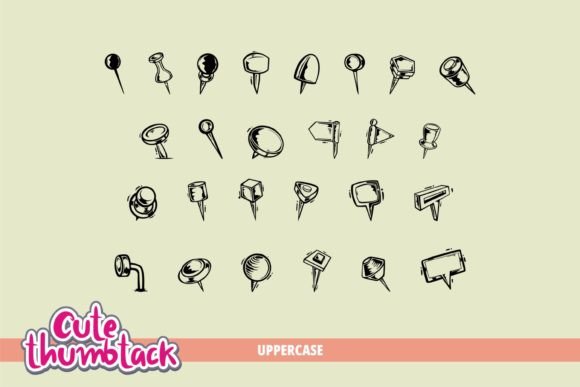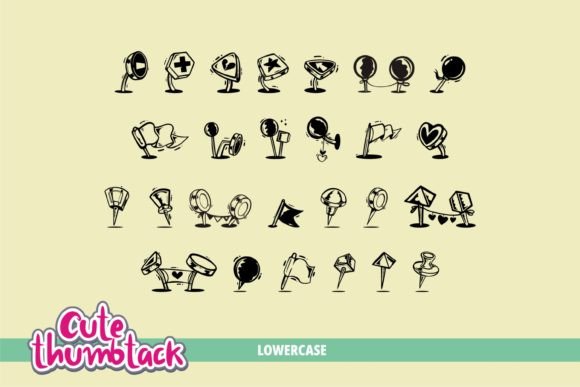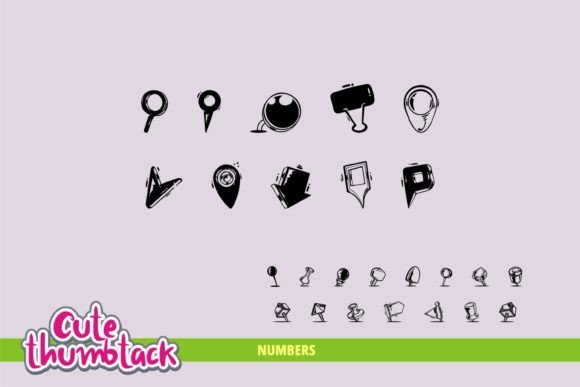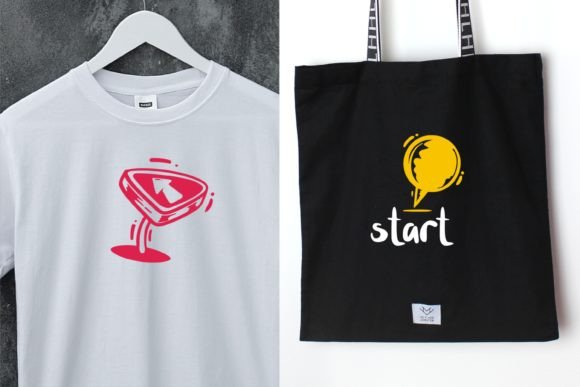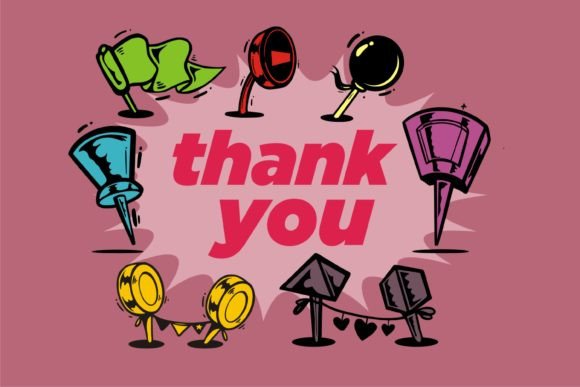
Introduction to Cute Thumbtack Font
Who hasn’t felt that rush of excitement when they stumble upon a unique design resource that instantly elevates their creative project? As designers, we’re always on the lookout for that one special something that sets our work apart from the rest. For me, it was the discovery of the Cute Thumbtack Font – a delightful dingbats font that adds a touch of whimsy and playfulness to any design.
Imagine being able to infuse your designs with a sense of fun and personality, without sacrificing quality or professionalism. With the Cute Thumbtack Font, you can do just that. Whether you’re creating a t-shirt design, a kids’ book, or a piece of wall art, this high-quality font is sure to bring a smile to your face and a sparkle to your design.
Key Features of Cute Thumbtack Font
- High-quality design resource suitable for creative projects, such as invitations, party decorations, and scrapbooking.
- Perfect for adding a cute and playful touch to designs, with its unique thumbtack-inspired design elements.
Honest Review: Cute Thumbtack Font
I recently stumbled upon the Cute Thumbtack Font, and I must say it’s a delightful addition to any design project. This free download is perfect for those looking for a unique and playful touch. I was impressed by the high-quality design, which is ideal for creating engaging visual content.
- ✨ Unique and creative design that’s perfect for adding a personal touch to projects.
- ⚠️ Limited character set, which may not be suitable for extended text-based projects.
- ⚠️ Not ideal for professional or formal designs, as it may come across as too playful.
Overall, I’d recommend the Cute Thumbtack Font for creative projects that require a lighthearted and whimsical touch. It’s a great resource for designers looking to add some personality to their work. Just be aware of its limitations and use it accordingly.
Cute Thumbtack Font
Designing with Cute Thumbtack Font
Getting the Most Out of Cute Thumbtack Font
To get the most out of Cute Thumbtack Font, try the following tips:
1. Experiment with different font sizes and colors to add visual interest.
2. Use the font on a transparent background to create a clean and modern look.
3. Combine Cute Thumbtack Font with other design elements to create a unique and eye-catching design.
Common Use Cases for Cute Thumbtack Font
Cute Thumbtack Font is perfect for:
1. Designing invitations and event materials.
2. Creating social media graphics and